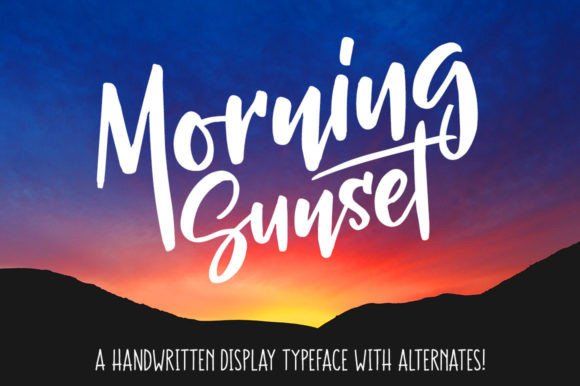
Dive into the enchanting world of Morning Sunset, a captivating handwritten script font that evokes the tranquility of seaside sunrises and sunsets. Immerse yourself in the artistry of GeekMissy's creation, where every letter dances with the charm and personality of a handwritten note.
This exquisite font is more than just a collection of letters; it's an expression of creativity, a whisper of the sea, and a symphony of emotions. It's perfect for crafters and vinyl cutters who seek fonts that are both elegant and practical.
Morning Sunset's quirks and bumps, reminiscent of genuine handwriting, add a touch of authenticity to your designs, while its smooth flow ensures effortless cutting and crafting. Elevate your projects with the standard and alternate character sets, allowing you to mix and match uppercase and lowercase letters for a truly personalized touch.
With over 200 accented characters, Morning Sunset embraces the diversity of languages, including English, French, Spanish, German, Polish, and more. Its comprehensive support for foreign languages makes it a font for the global community.
The Morning Sunset font family includes both OTF and TTF file formats, ensuring compatibility with various design software. It features standard uppercase and lowercase alphabets, stylistic alternate uppercase and lowercase alphabets, numbers, punctuation, accented characters, and double-letter ligatures.
Open the door to endless creative possibilities with Morning Sunset. Its versatility knows no bounds, whether you're designing logos, crafting personalized invitations, creating unique T-shirt designs, or adding a touch of elegance to your digital projects. Let your imagination soar as you explore the depths of this remarkable font.
With Morning Sunset, your designs will radiate warmth, charm, and a touch of seaside magic. Embrace the beauty of this font and let your creativity shine. Dive into Morning Sunset today and unlock a world of design possibilities!